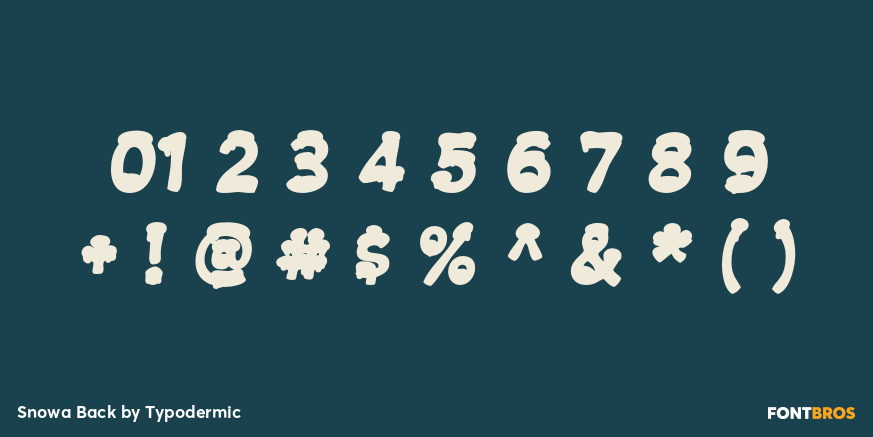
Snowa Back
Buy NowSnowa Back contains the solid letter-body component of Snowa's layered winter system. Its soft, irregular forms provide the foundation, while Snowa Front can be aligned over them to add the separate snow covering in another color or finish. Keeping the body independent lets one recognizable title support many seasonal treatments.
Use Snowa Back as the base layer for resort names, ski-school graphics, winter attractions, holiday retail, frozen-treat packaging, and animated weather campaigns. Change the body color across activities, products, or editions while keeping the snow consistent. When combining it with Front, use identical wording, size, spacing, and position so the two components register correctly.